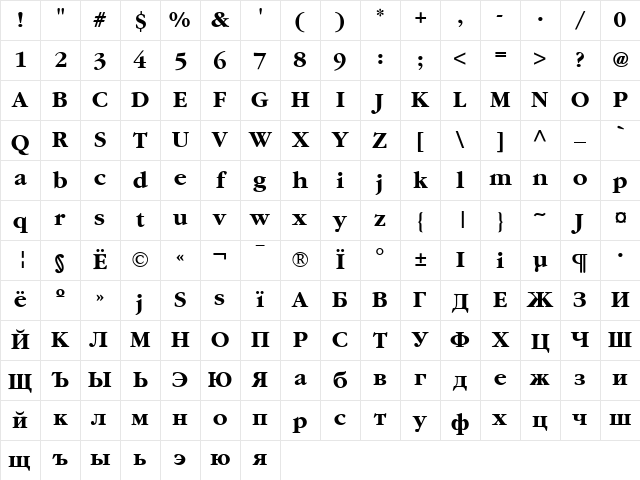
Complete AGGaramondCyr Bold glyph index. Displaying only characters natively supported by AGGaramondCyr Bold font.
AGGaramondCyr is a composed and adaptable typeface that performs quietly and consistently across a wide range of design contexts. Its bold stroke weight gives it real presence on the page.